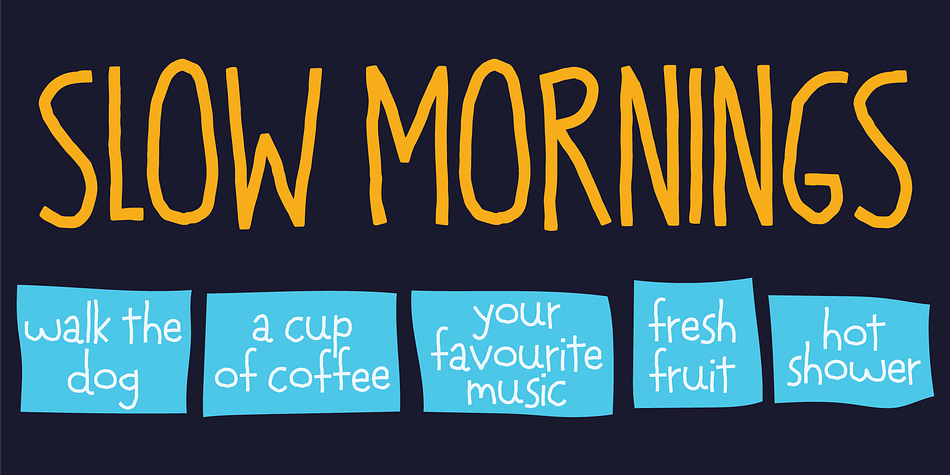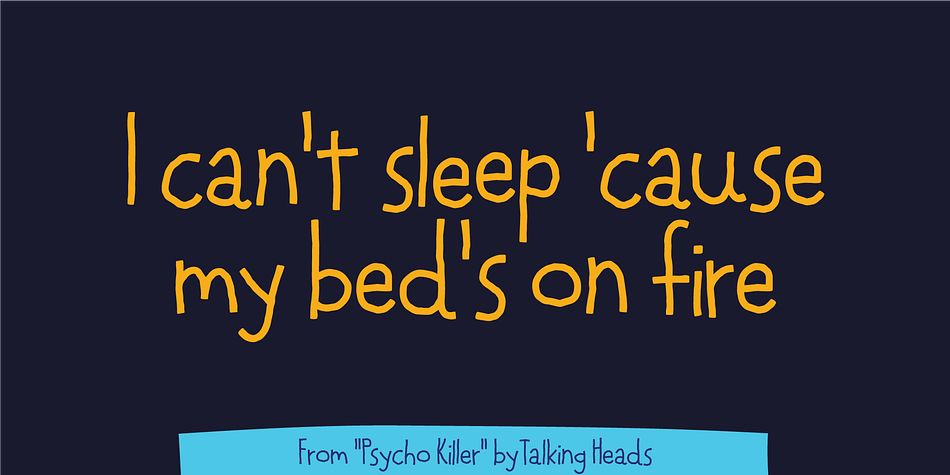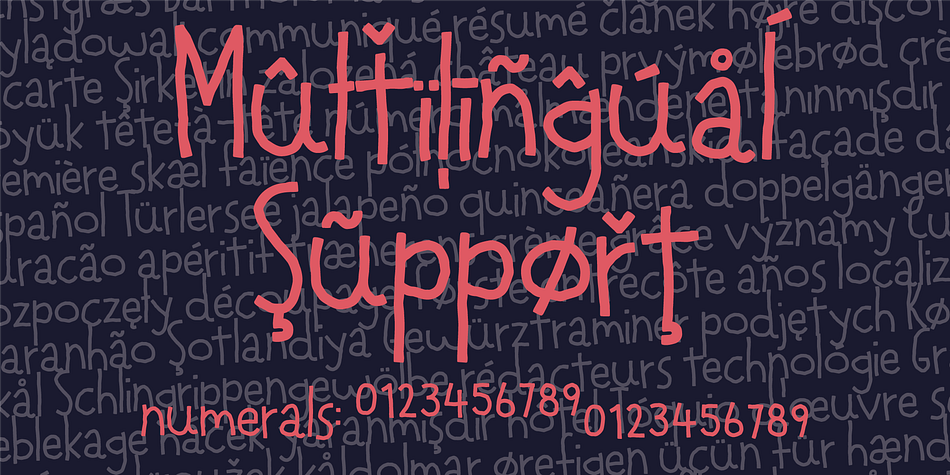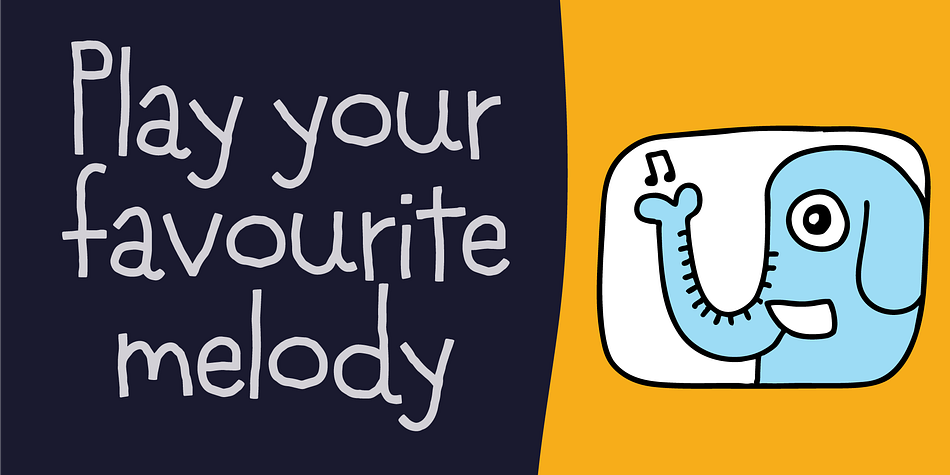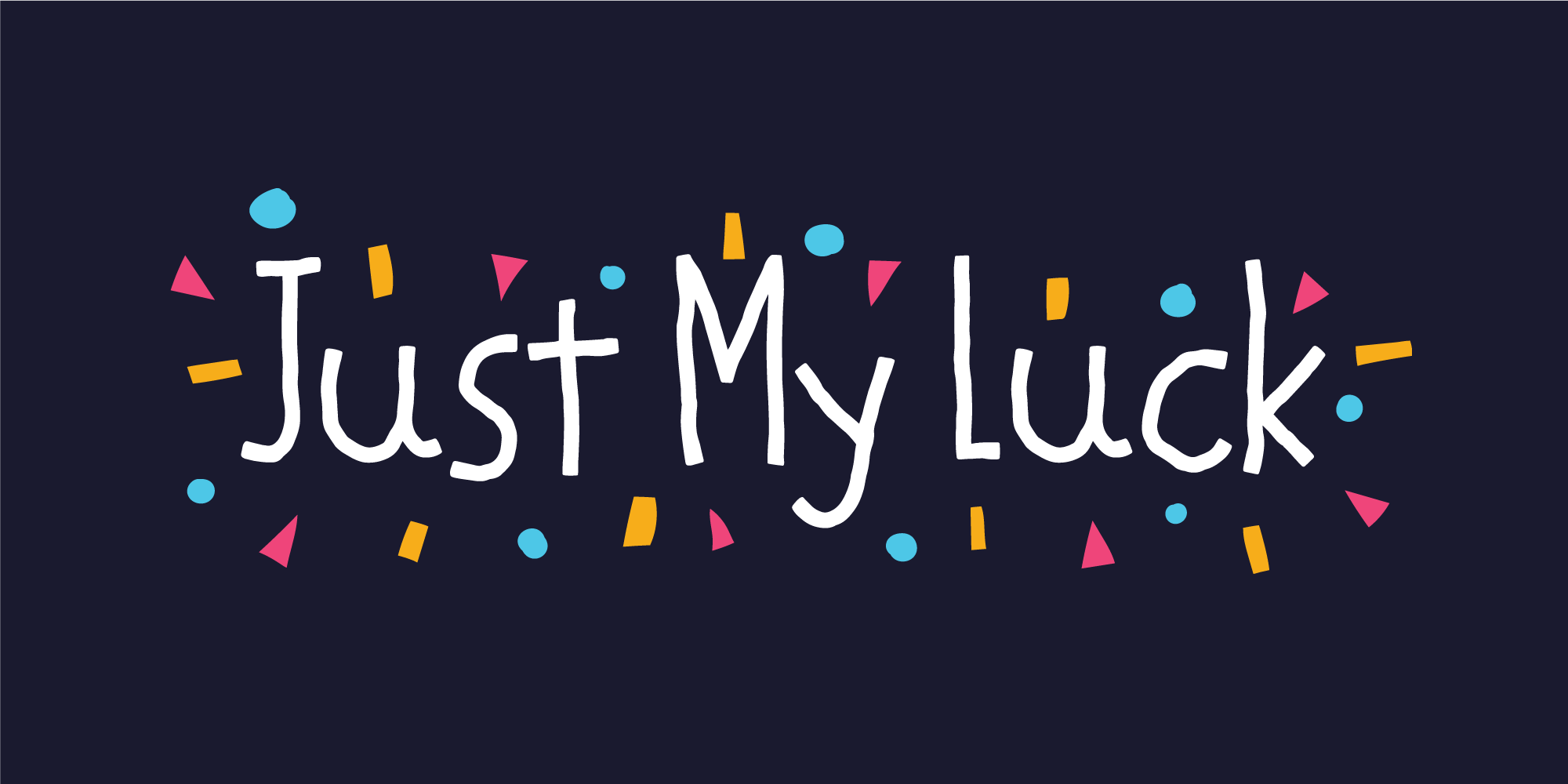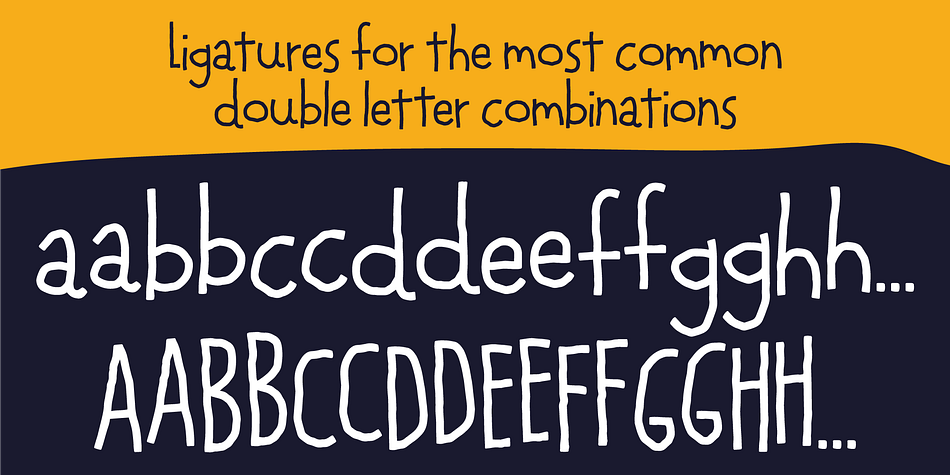
Just My Luck
Designed by Jakob Fischer, Just My Luck is a hand drawn font family. This typeface has two styles and was published by Pizzadude.dk.
“Won’t you believe it? It’s just my luck!” is what Kurt Kobain from Nirvana sang in the tune “School” The song is quite rough and grunge, but nevertheless, the lyrics inspired me to make this font. My font, however, is more about fun and games :) It’s playful and somewhat crunchy!